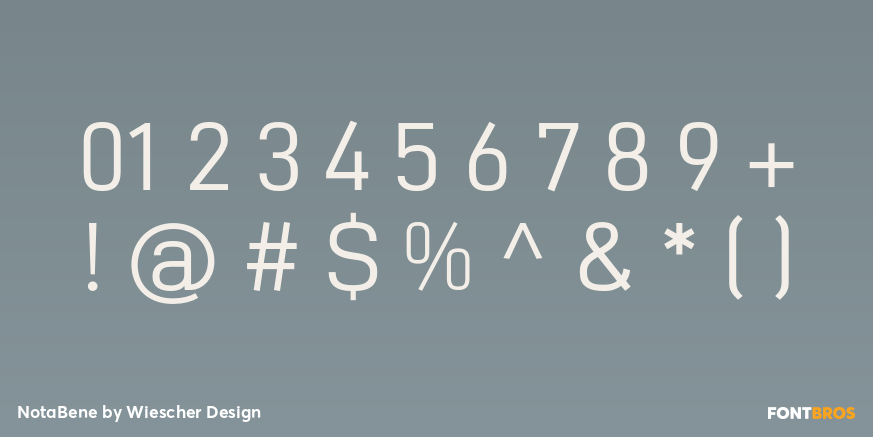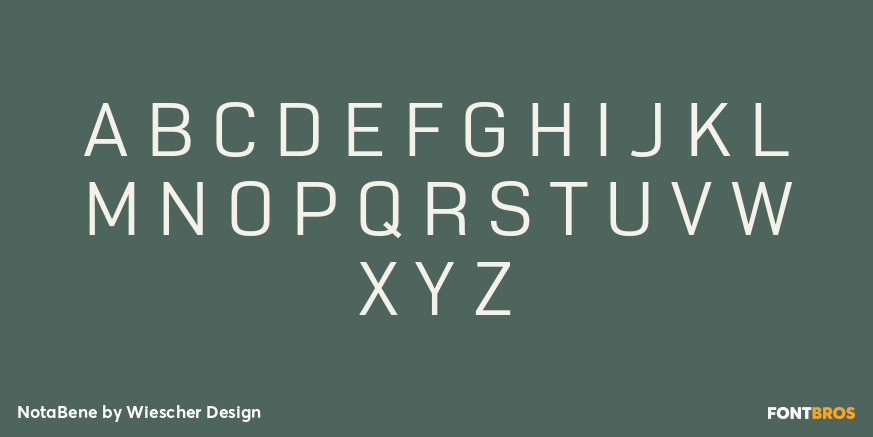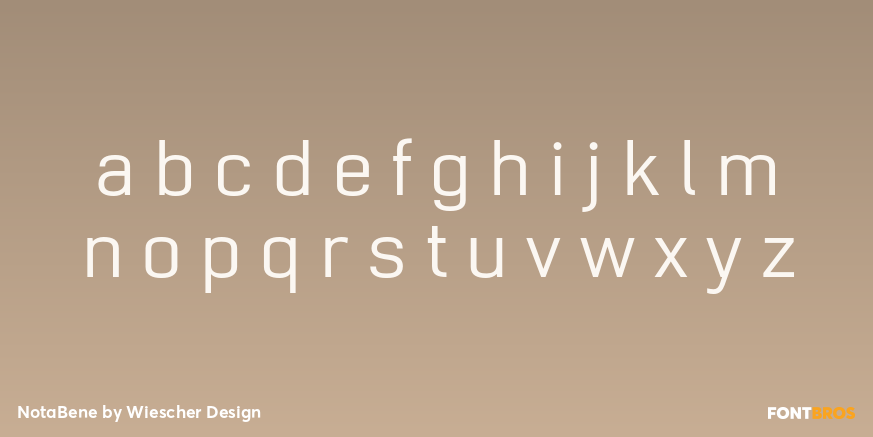
NotaBene
Font Family by Wiescher Design
?NOTABENE? is a new, squarish, narrow, technical font? designed by Gert Wiescher in 2015 ? has 7 weights with corresponding oblique cuts. ?NOTABENE? is well suited for advertising, logo, billboards, small text, signage, branding, packaging, editorial, posters, web and screen design. ?NOTABENE? is an OpenType family for professional typography with an extended character set of over 700 glyphs and extensive kerning. It supports more than 40 Central- and Eastern-European as well as many Western languages. Ligatures, different figures, fractions, currency symbols and small caps can be found in all cuts. ?NOTABENE? is a sister-font to NOTA. The two fonts can be easily mixed.